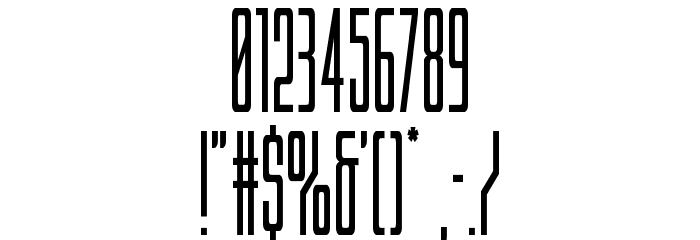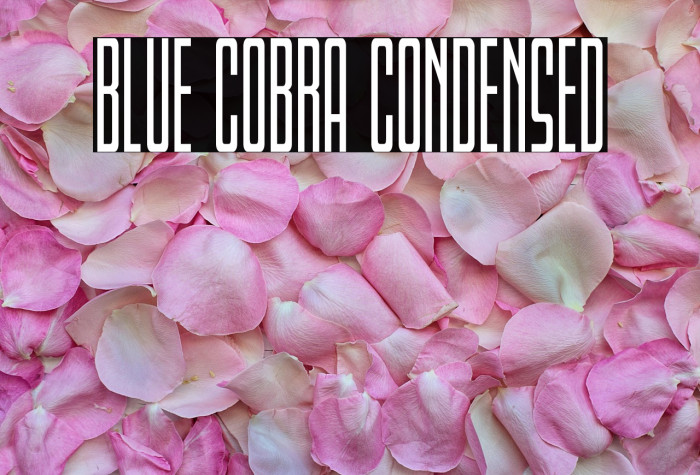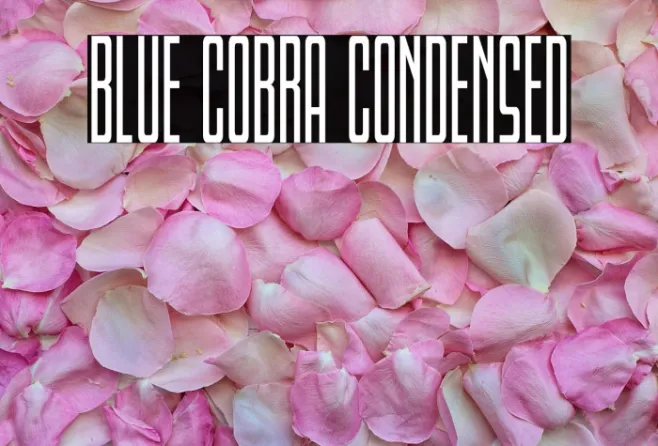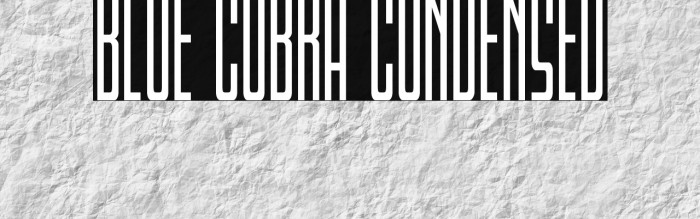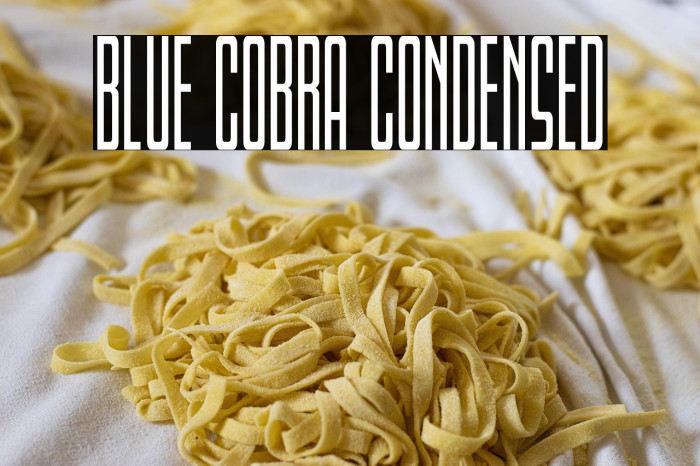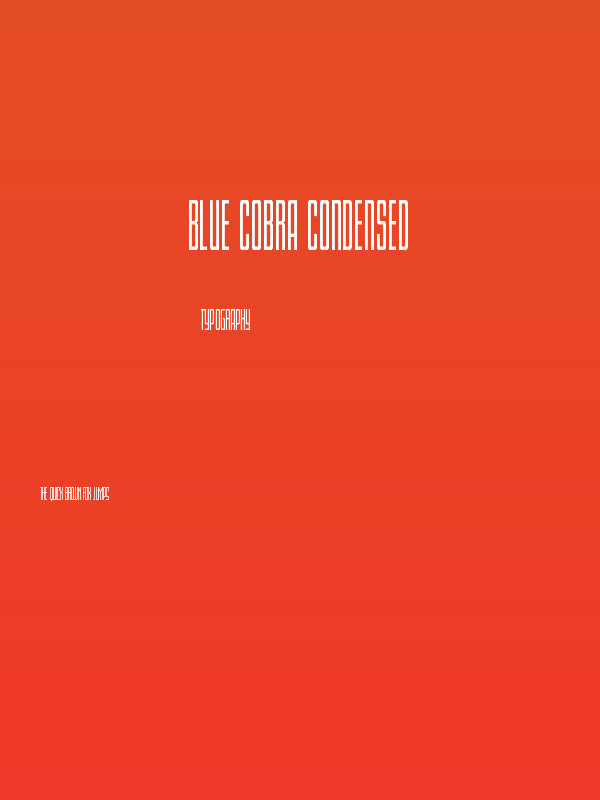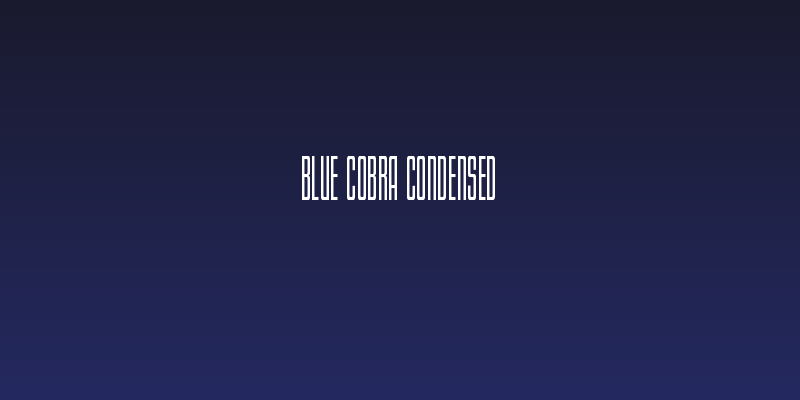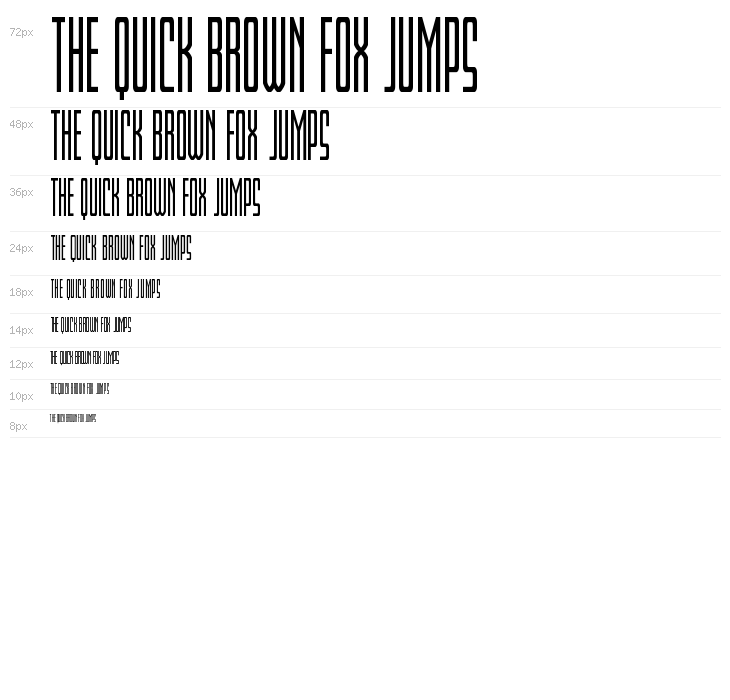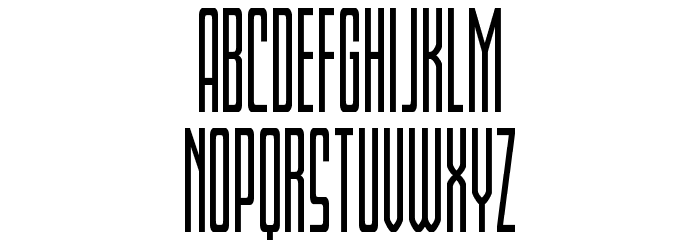
Blue Cobra Condensed Font
Blue Cobra Condensed Description
This font features a highly condensed and geometric style, characterized by tall, narrow letters with minimal spacing between them. The uppercase and lowercase letters maintain a consistent height, creating a uniform appearance. The strokes are even and straight, giving the font a modern and structured look. The numerals and special characters follow the same condensed design, ensuring a cohesive visual identity across all characters. This font's unique style makes it stand out, offering a bold yet clean aesthetic.
| Proposed Projects | Ideal for branding, posters, and headlines where a modern and impactful look is desired. |